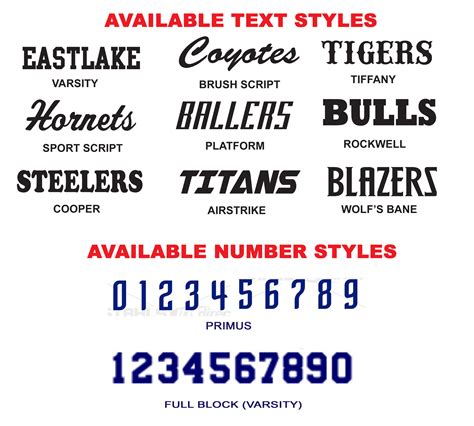
Baseball Jersey Numbers: Decoding The Font Styles
Hey guys! Ever been at a baseball game and found yourself admiring the jerseys, wondering, “ What font is used for baseball jersey numbers? ” You’re definitely not alone! It’s a question that pops into the minds of many fans. These numbers aren’t just slapped on; they’re carefully chosen to fit the team’s brand, the era, and even the player’s personality. Let’s dive deep into the world of baseball jersey fonts, exploring the styles, the history, and some of the key factors that make them so iconic.
The Evolution of Baseball Jersey Number Fonts
Baseball jersey number fonts have evolved significantly since the sport’s early days. Initially, in the late 19th and early 20th centuries, simplicity reigned supreme. Teams often used basic block fonts that were easy to read and produce. Think of the old-school jerseys with bold, straightforward numbers. As time went on and the sport’s popularity exploded, teams started to experiment with more creative and unique fonts to establish their identities. This was the birth of some truly iconic looks!
The 1930s and 40s saw the rise of Art Deco-inspired fonts, with sleek lines and geometric shapes. These fonts brought a touch of elegance and sophistication to the game. Then, in the mid-20th century, the era of the modern baseball jersey began. Teams adopted fonts that reflected their team’s colors, logo, and overall aesthetic. These fonts weren’t just about readability; they were about creating a visual statement. This is when the ‘script’ font style was born, giving the jersey a unique twist. The Brooklyn Dodgers and the New York Yankees were pioneers, each using unique and memorable fonts that became synonymous with their teams. The Dodgers’ script font, in particular, became an emblem of the team’s identity.
Fast forward to today, and you’ll find a wide array of fonts, from classic block letters to modern, custom-designed typefaces. Some teams stick with traditional looks, while others embrace contemporary styles. Some fonts are inspired by military designs, giving a sense of strength and heritage, some are inspired by the local landscape or history, and some fonts are entirely unique, designed specifically for that team. The evolution of baseball jersey fonts is a testament to the sport’s evolving aesthetics. It reflects the changing times and the enduring desire for teams to connect with their fans through a strong visual identity.
The Influence of Uniform Manufacturers
Uniform manufacturers like Rawlings, Majestic, and Adidas also play a big role in font selection. These companies often have their own proprietary fonts or partner with teams to develop custom designs. This collaboration ensures that the jersey numbers not only look good but are also durable and meet the performance needs of the players. The manufacturing process itself influences the font’s design. The chosen font must be easily legible and compatible with various printing and stitching methods. They must also consider factors like fabric type, jersey material, and the overall look of the uniform.
Common Baseball Jersey Number Font Styles
Alright, let’s get into the nitty-gritty and break down some common font styles you’ll see on the baseball field. It’s like a font buffet!
Block Fonts
Block fonts are the OG of baseball jersey numbers. Simple, bold, and easy to read. They are the workhorses of the sport, and they come in many varieties. You’ll often see them with slight variations in the thickness of the lines or a subtle shadow effect.
• Characteristics : Straightforward, clean lines, high legibility. Often the choice for teams looking for a classic look or that want the focus on the team logo.
• Examples : Think about the classic New York Yankees uniforms – their block font is instantly recognizable and has been a staple for decades. Also, think of the Boston Red Sox with their blocky fonts. The font is very consistent.
Script Fonts
Now, for something a bit more stylish. Script fonts add a touch of flair and personality. They are often italicized and have a flowing, cursive appearance. They give the jersey a sense of movement and energy, and they can be very visually appealing. However, they aren’t always the easiest to read from a distance.
• Characteristics : Cursive, elegant, often personalized. Can vary greatly in style, from delicate and flowing to bold and stylized.
• Examples : The classic Los Angeles Dodgers script font is a prime example of a script font. Also, the San Francisco Giants have a script font on their jerseys.
Slab Serif Fonts
Slab serif fonts are like the block fonts’ more muscular cousins. They have thick, rectangular serifs (the little strokes at the end of each letter). They have a strong, solid appearance, and they are excellent for creating a bold, eye-catching look.
• Characteristics : Bold, strong, with thick serifs. Very readable and often used to create a vintage or retro feel.
• Examples : You might spot this style on some vintage or throwback jerseys, giving them a retro vibe. Teams like the St. Louis Cardinals have used this style.
Custom and Modern Fonts
Many teams are now using custom and modern fonts to create a unique identity. These fonts are often designed specifically for the team and are exclusive to their uniforms.
Conclusion
So, the next time you’re watching a game, take a moment to appreciate the fonts on those jerseys! They are an integral part of the sport’s visual identity, reflecting history, personality, and team spirit. The font choice can tell a story, connect with fans, and create a lasting legacy. So, the next time someone asks, “What font is used for baseball jersey numbers?” , you can wow them with your newfound knowledge! It’s not just about a font; it’s about the entire aesthetic!